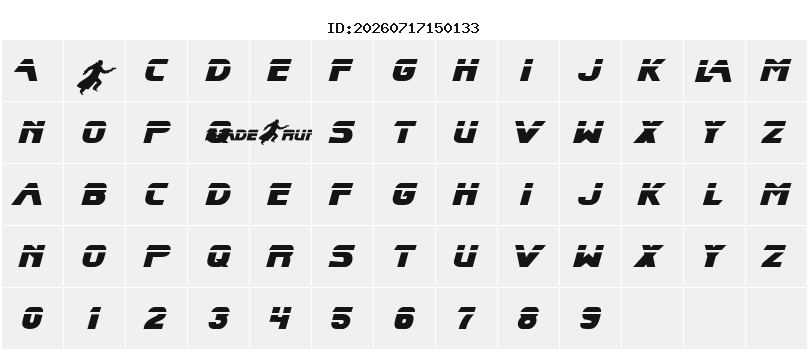
Blade Runner Movie Font 2 Preview
• Font Name: Blade Runner Movie Font 2
• Version: Blade Runner Movie Font 2 - v2.00 Saturday, October 24, 1998 11:45:30 pm (EST)
About Blade Runner Movie Font 2.ttf
Blade Runner Movie Font 2.ttf is a modern, elegant sans-serif font designed for ultimate readability and visual harmony. Perfect for branding, headlines, web design, and print materials.